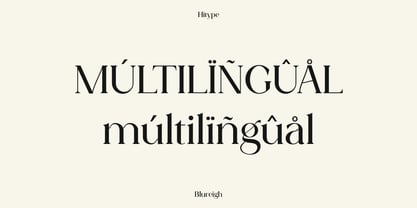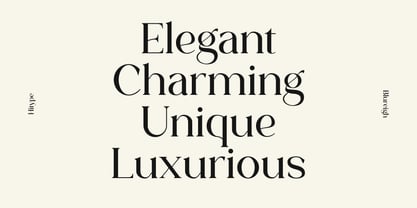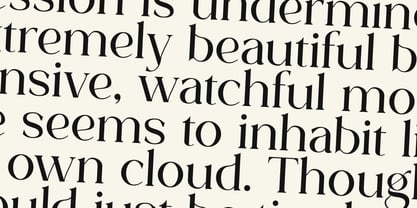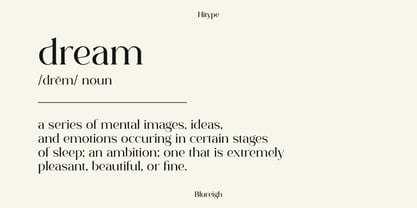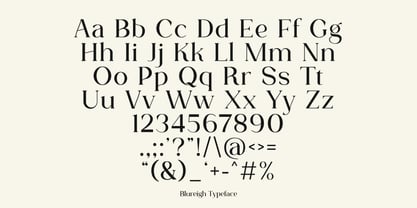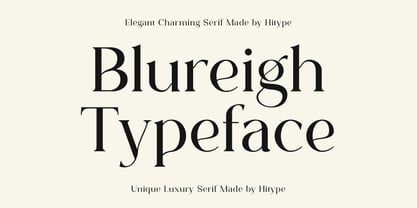
Blureigh
by Hitype
The Blureigh Font Family was designed by Hernando Marlay and published by Hitype. Blureigh contains 1 styles.
Blureigh is a sophisticated, charming serif font with a fashionable touch and unique style. Specially designed for luxury, elegant, feminine projects, this font is perfectly suitable for creating modern, chic designs. Suitable for logos, posters, packaging, branding, invitations, notes, etc.
Designers: Hernando Marlay
Publisher: Hitype
Foundry: Hitype
Design Owner: Hitype